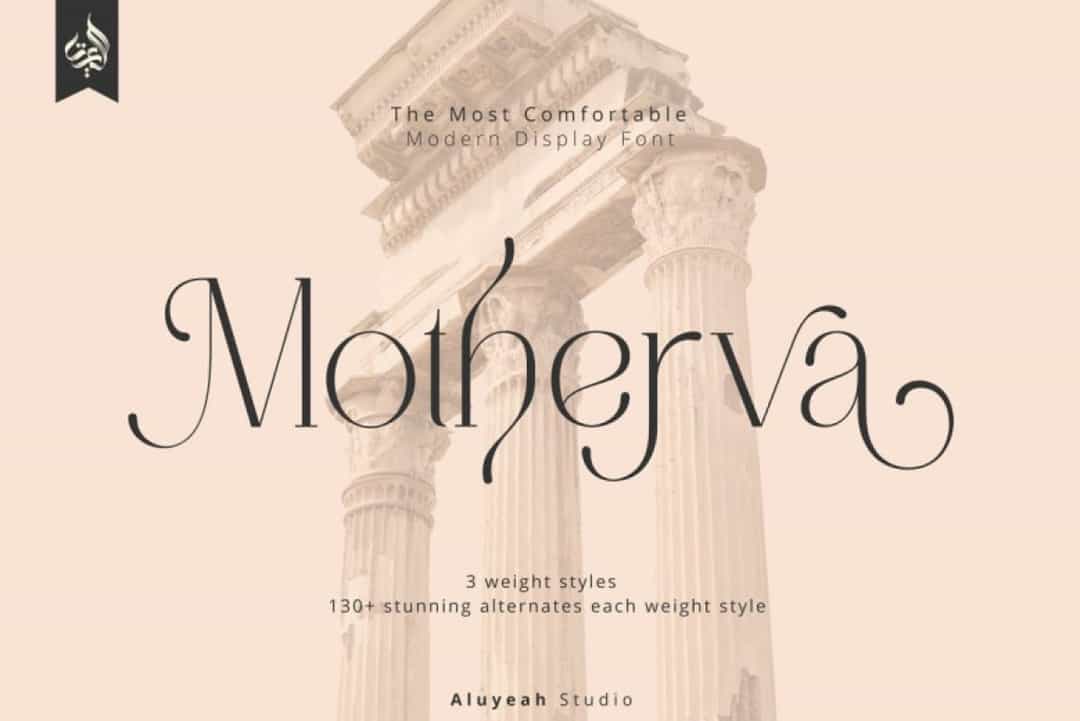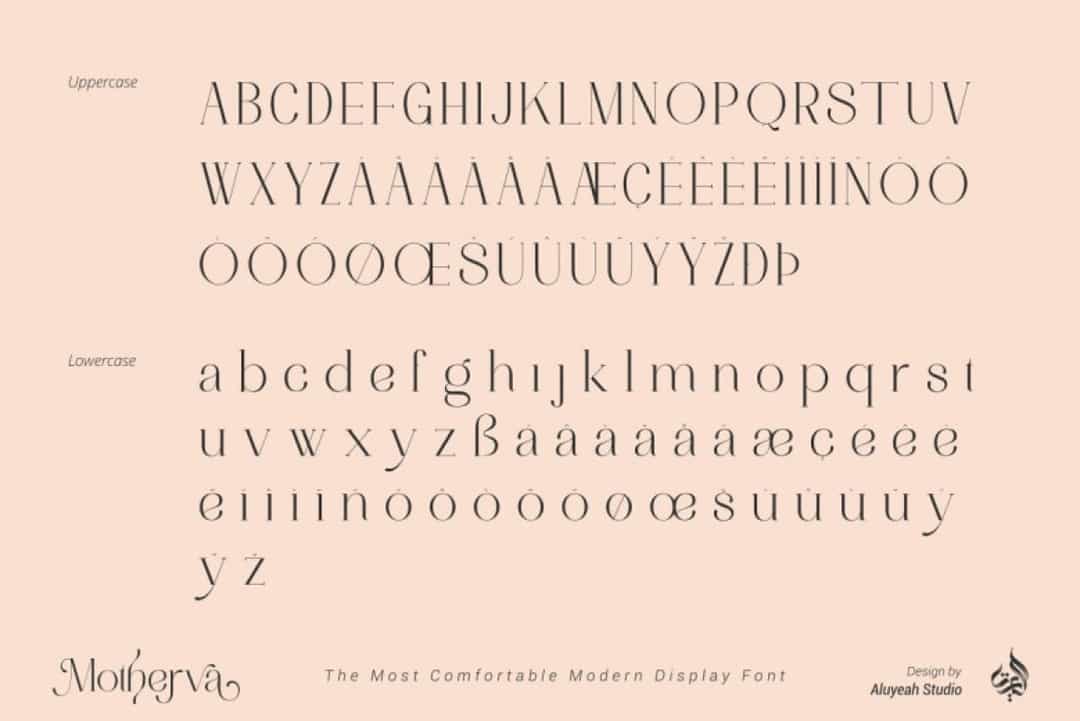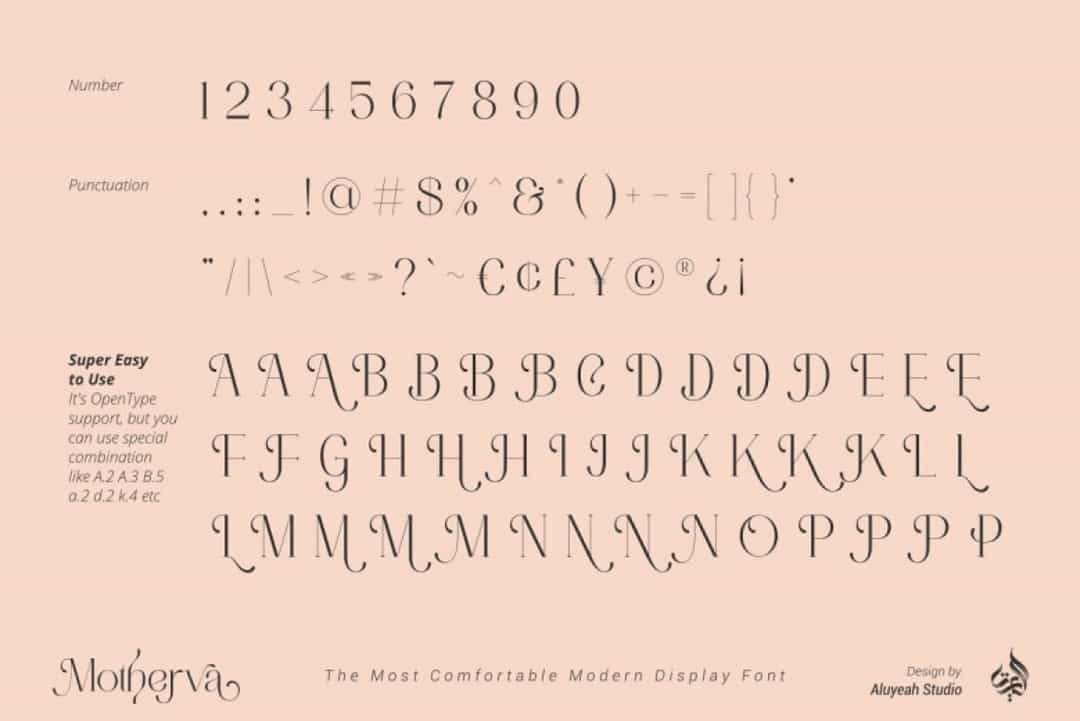
Motherva is an elegant and functional serif font designed with three weight styles that offer 130+ gorgeous and easy-to-use alternatives for each weight type – perfect for magazine headlines, website advertisements, product packaging designs or any design projects! It comes complete with three weight styles.